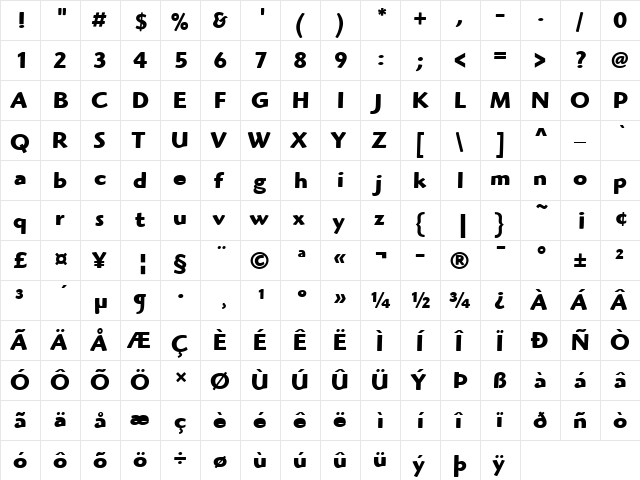
ITCHighlander LT Book Bold Font Preview
ITCHighlander LT Book Bold
ITCHighlander LT Book Bold Font Details
Design Context for ITCHighlander LT Book Typeface
ITCHighlander LT Book offers clean, dependable letterforms without strong stylistic allegiance, making it a practical choice for designers who need flexibility. The heavy weight commands attention and anchors typographic hierarchies.